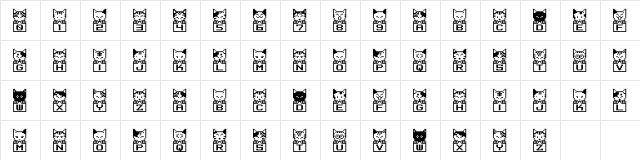
BM neco A29
Design Context for BM neco Typeface
BM neco is a composed and adaptable typeface that performs quietly and consistently across a wide range of design contexts.